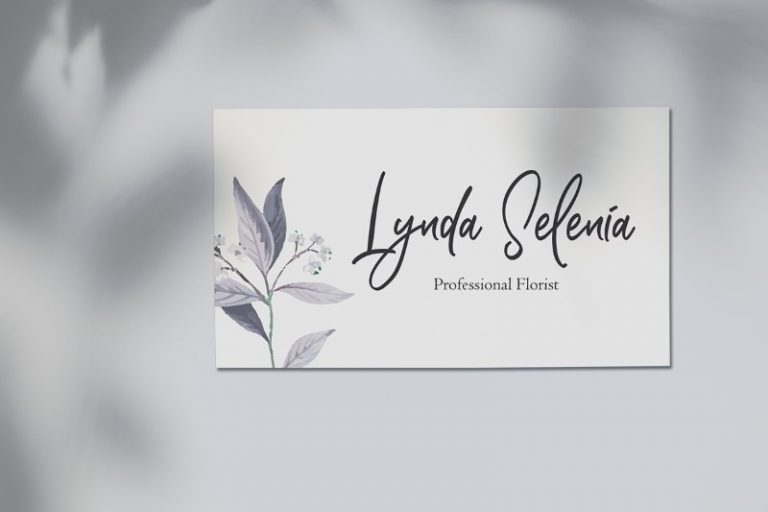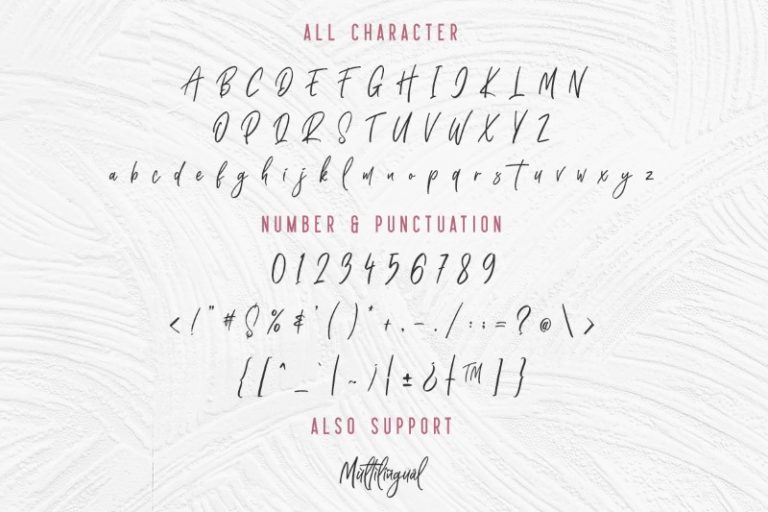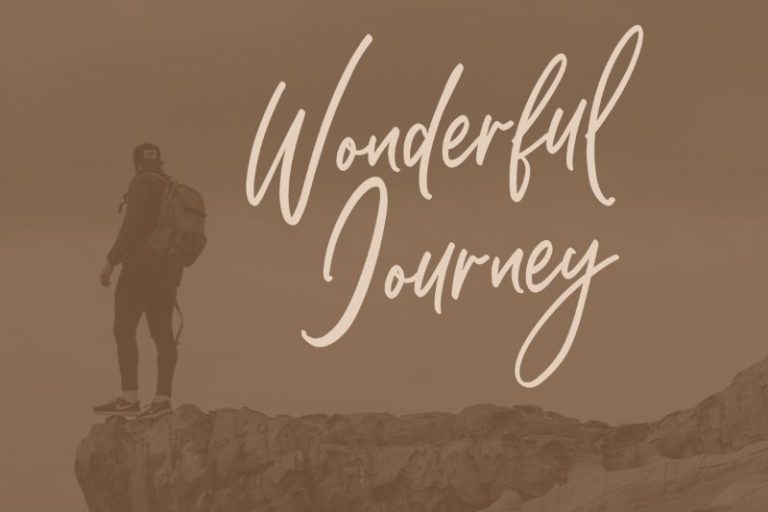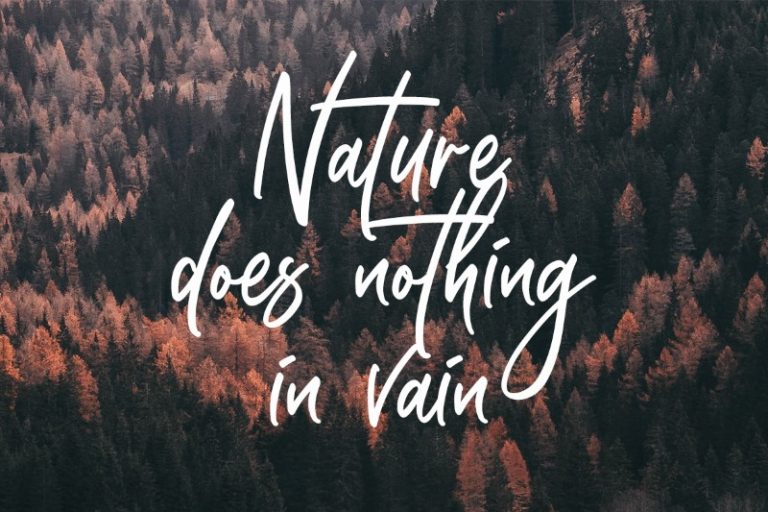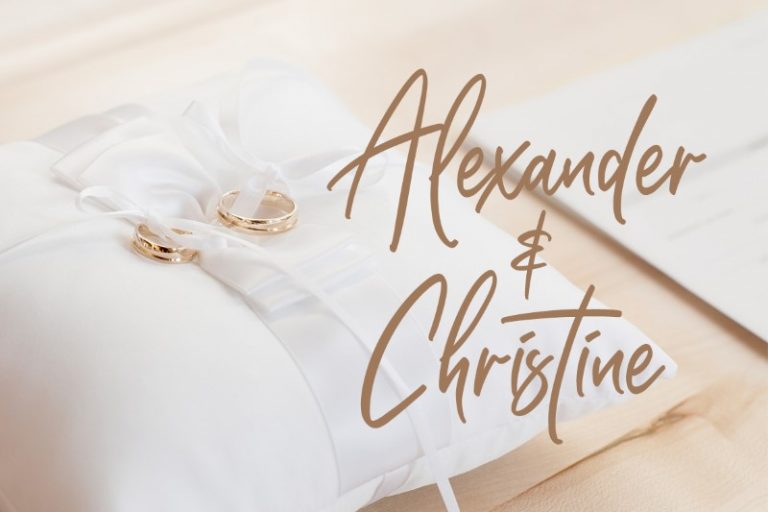
Higher Style
Introducing Higher Style Font. Higher Style is a luxury handwritten font . Made with naturally handwritten. The font will make your design more beautiful and powerful. This font is suitable for any design like branding, quotes and etc. I hope you enjoy it !! Thanks for visiting and downloading my font!